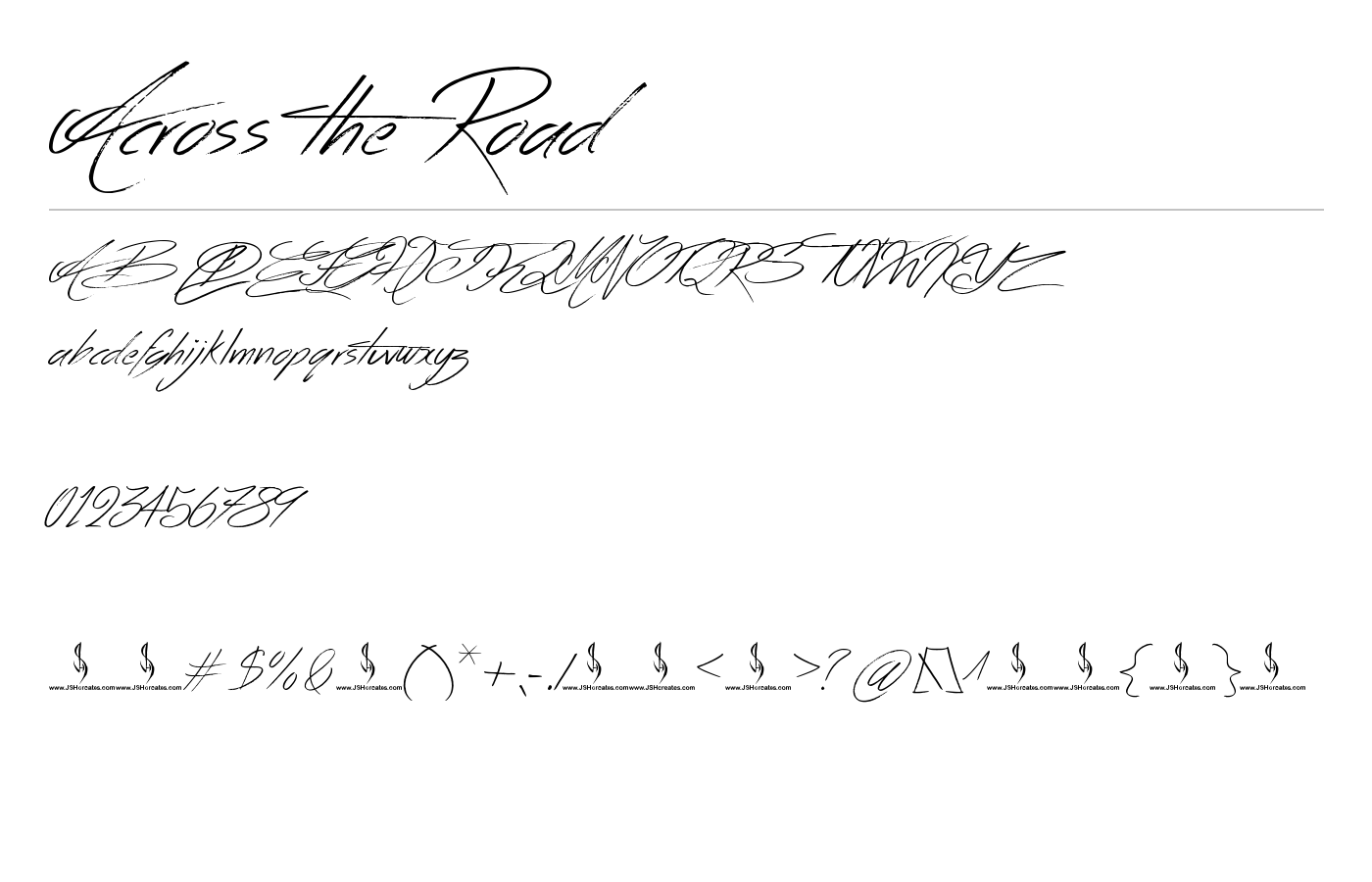
Across the Road is an elegant, flowing script font that mimics natural, handwritten calligraphy with its thin, graceful strokes and high contrast between light and slightly thicker lines. Its delicate, artistic style conveys a sense of sophistication and personal touch, making it ideal for invitations, branding, and editorial design where a refined, creative atmosphere is desired. This font works best in decorative or headline uses, adding a stylish, human feel to any project.
Across the Road Font
About Across the Road Font